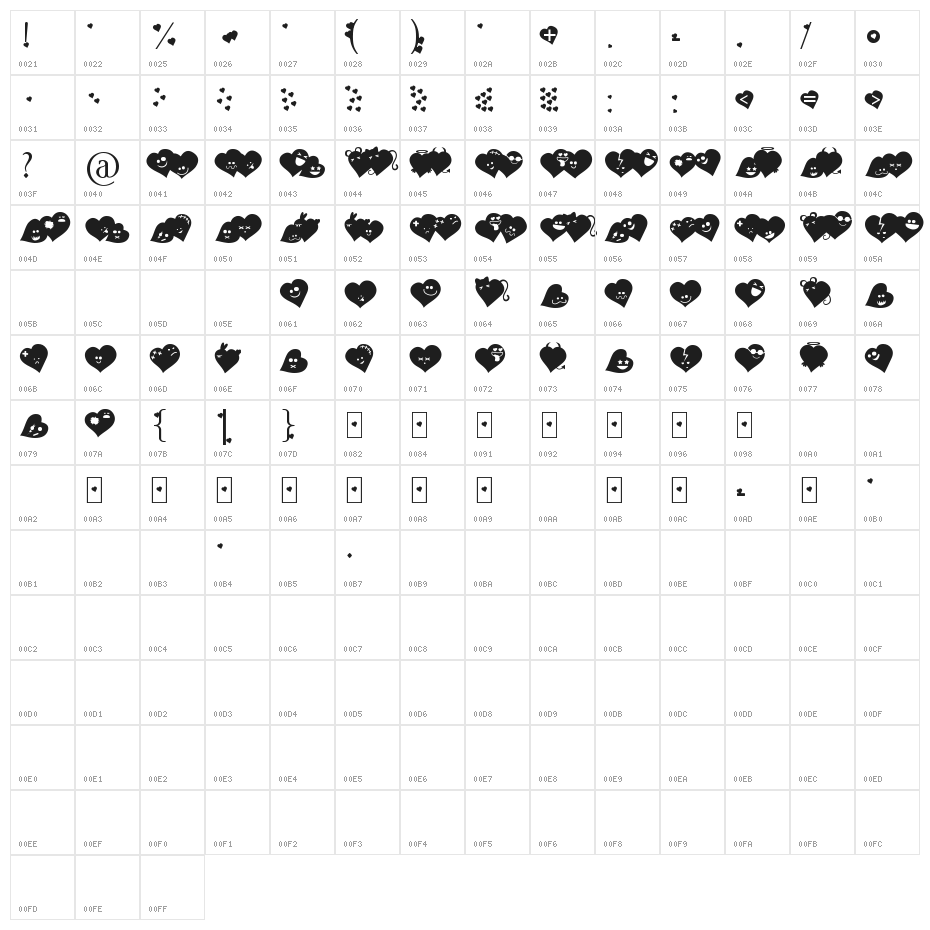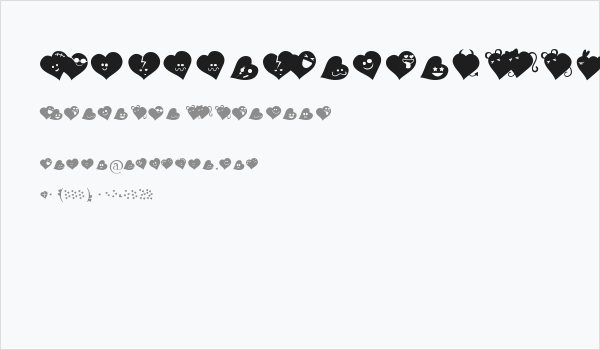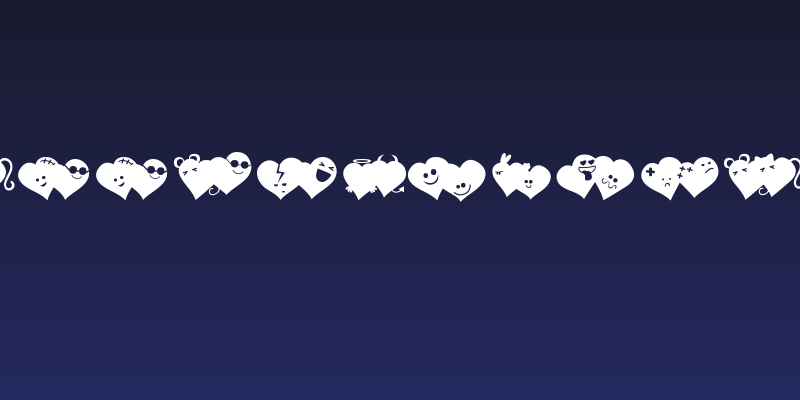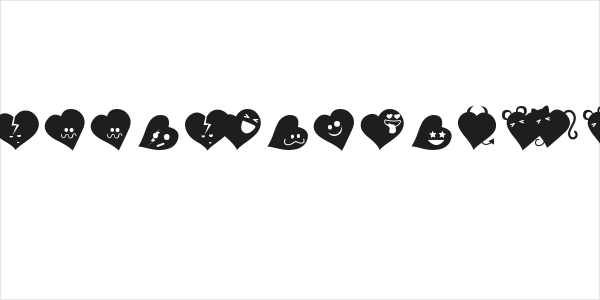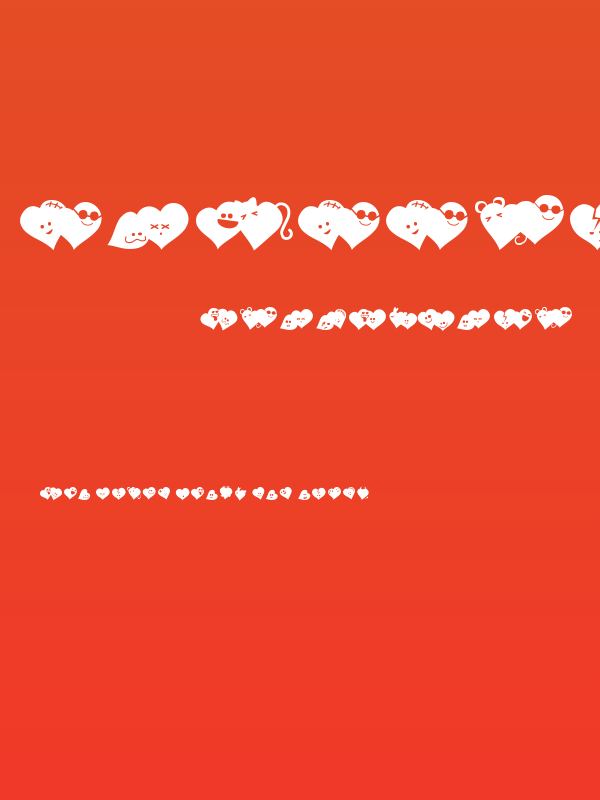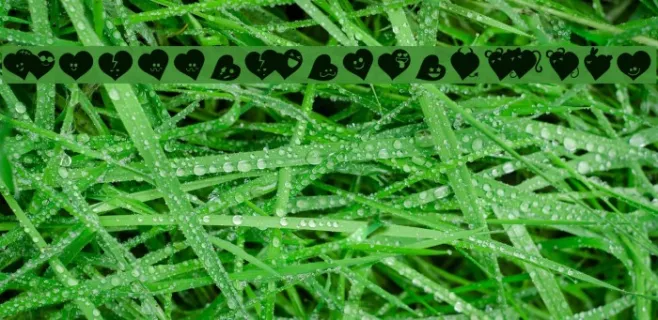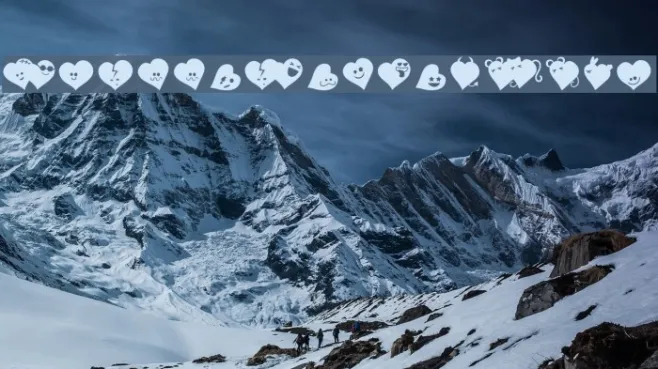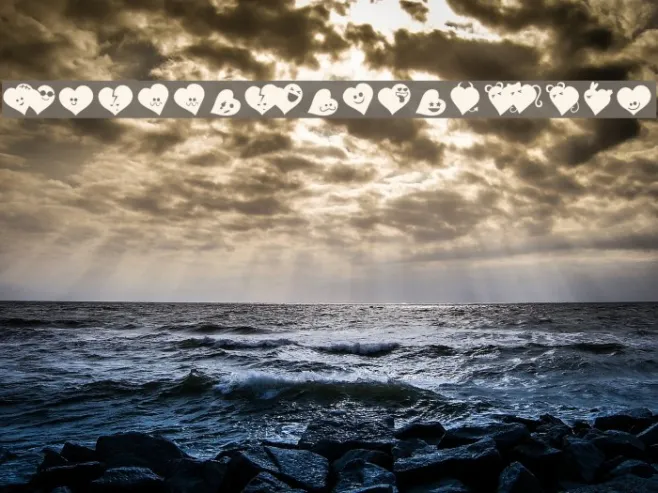
FluffyHeartsDing Font
FluffyHeartsDing Description
This is a decorative dingbat font featuring a variety of heart shapes with playful and whimsical designs. Each heart contains unique elements such as faces, expressions, and small icons, making it ideal for creative projects that require a fun and lively touch. The characters are bold and filled, ensuring they stand out in any design. The font is perfect for adding a touch of charm and personality to your work, whether it's for Valentine's Day projects, greeting cards, or playful branding. The variety of heart designs offers a wide range of options for different moods and themes.
| Use Case | Logos, Decorative elements, Greeting cards |
| Proposed Projects | Ideal for Valentine's Day cards, playful branding, greeting cards, and creative design projects. |